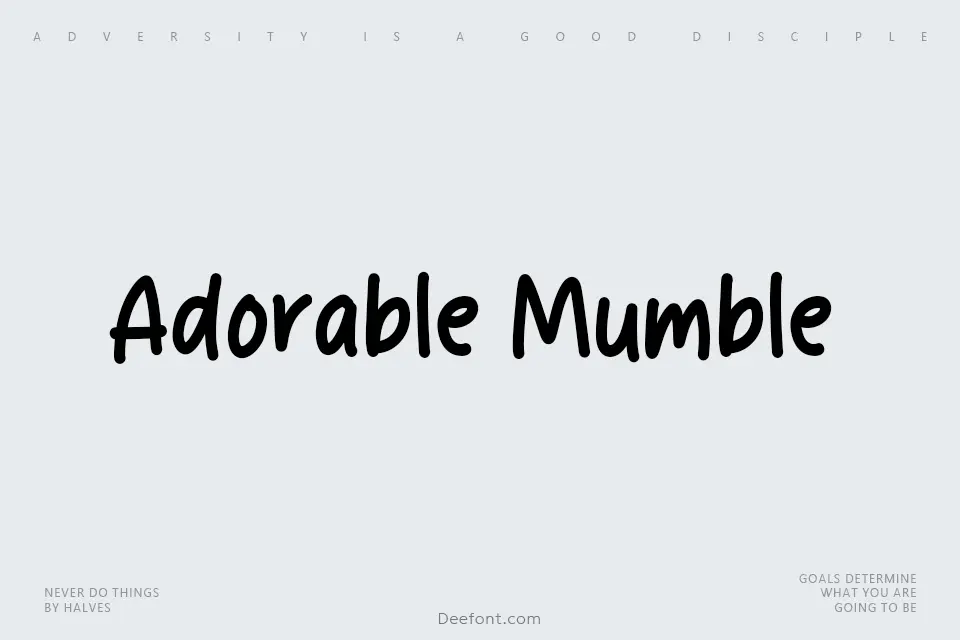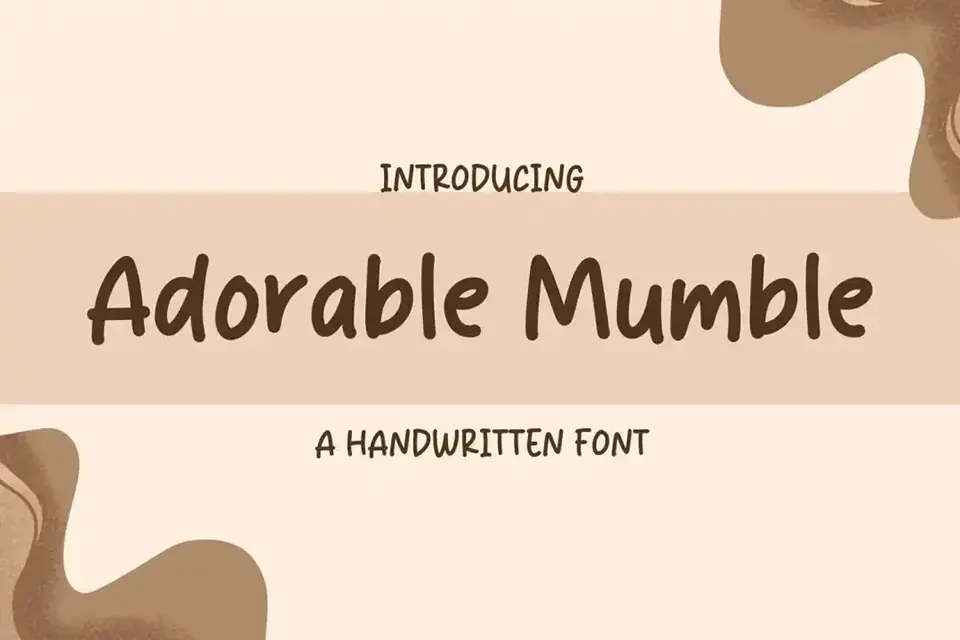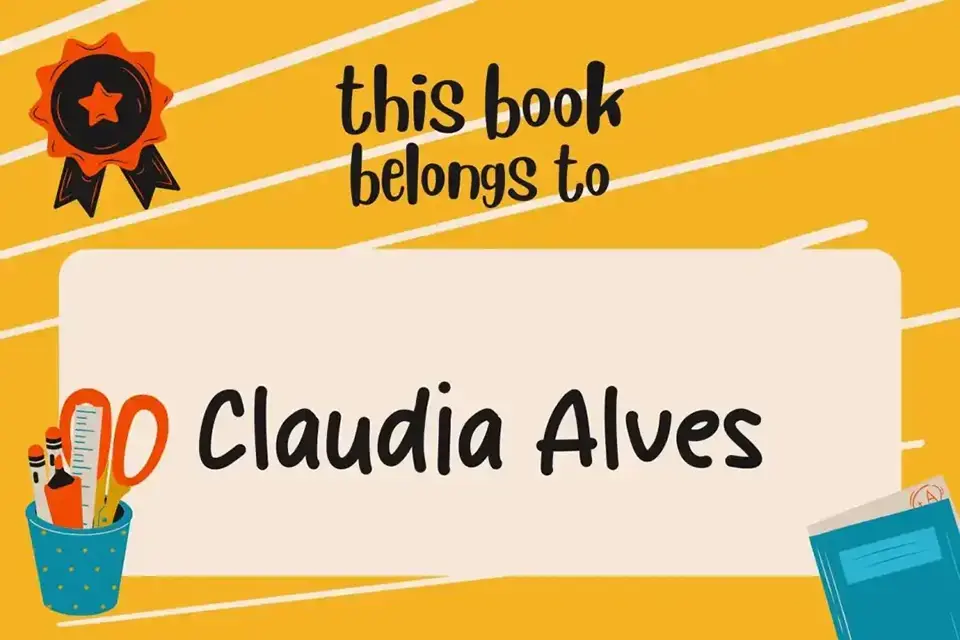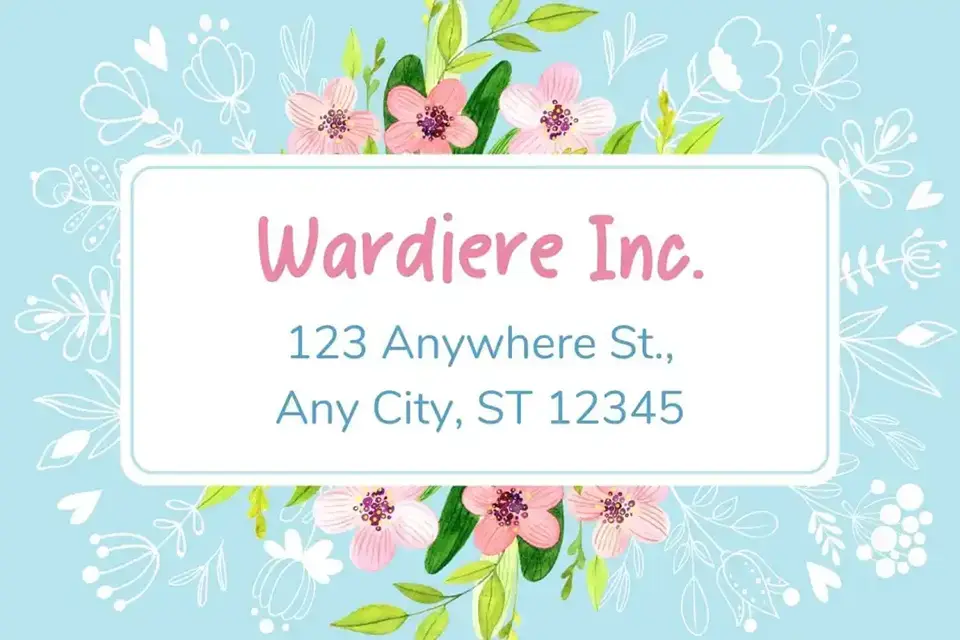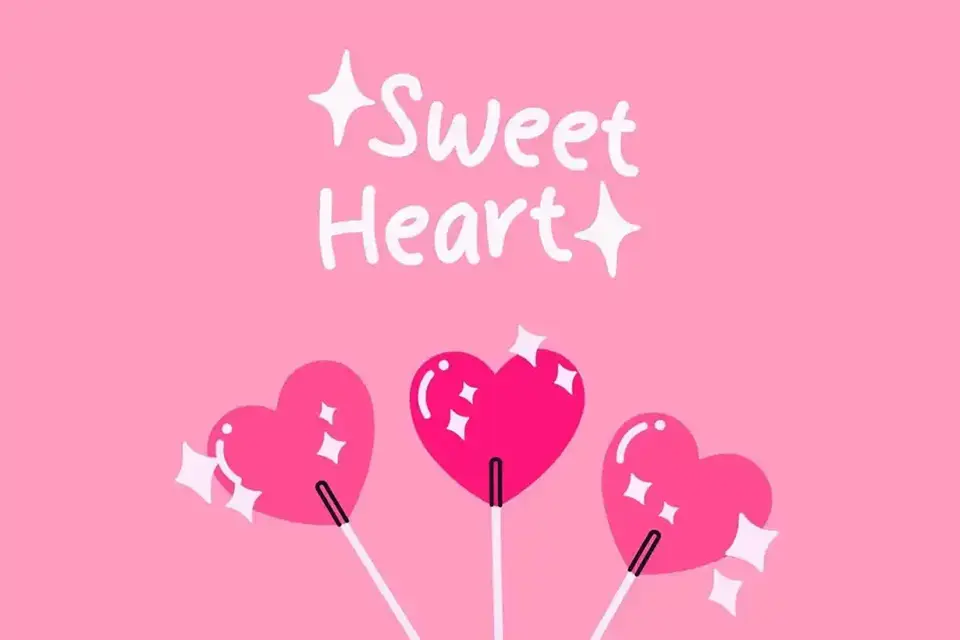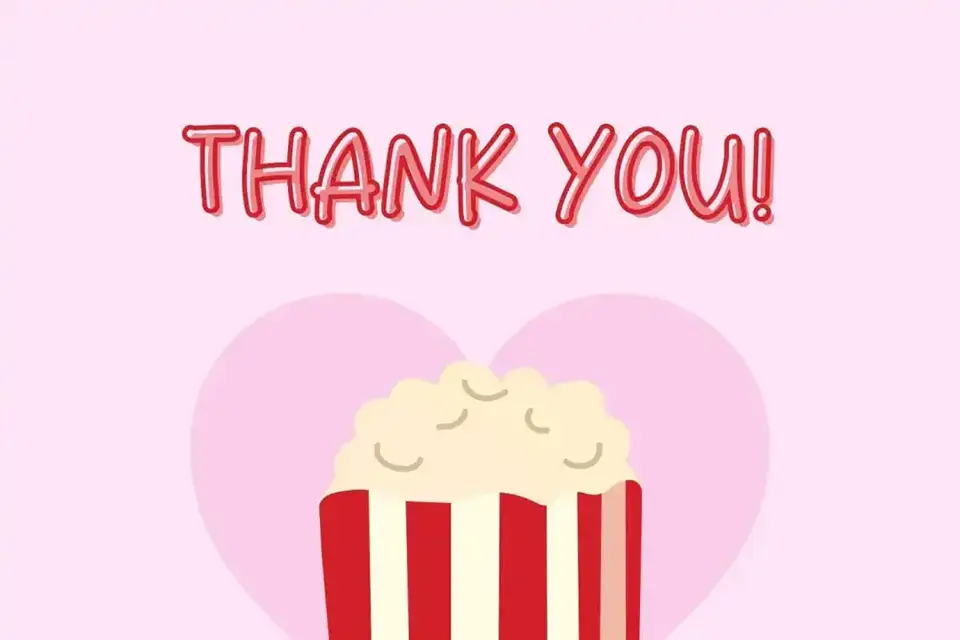
Adorable Mumble Font
Adorable Mumble is a delightful handwritten script font that brings personality and charm to any design project. Featuring soft, flowing letterforms with natural pen-like strokes, this display typeface excels at creating eye-catching headlines, promotional graphics, and decorative text. Its playful yet elegant aesthetic makes it perfect for posters, greeting cards, festive invitations, children’s illustrations, packaging designs, and social media content. The font’s distinctive handwritten quality adds authenticity and warmth to branding projects, while its versatile character set supports multilingual applications for global design needs.